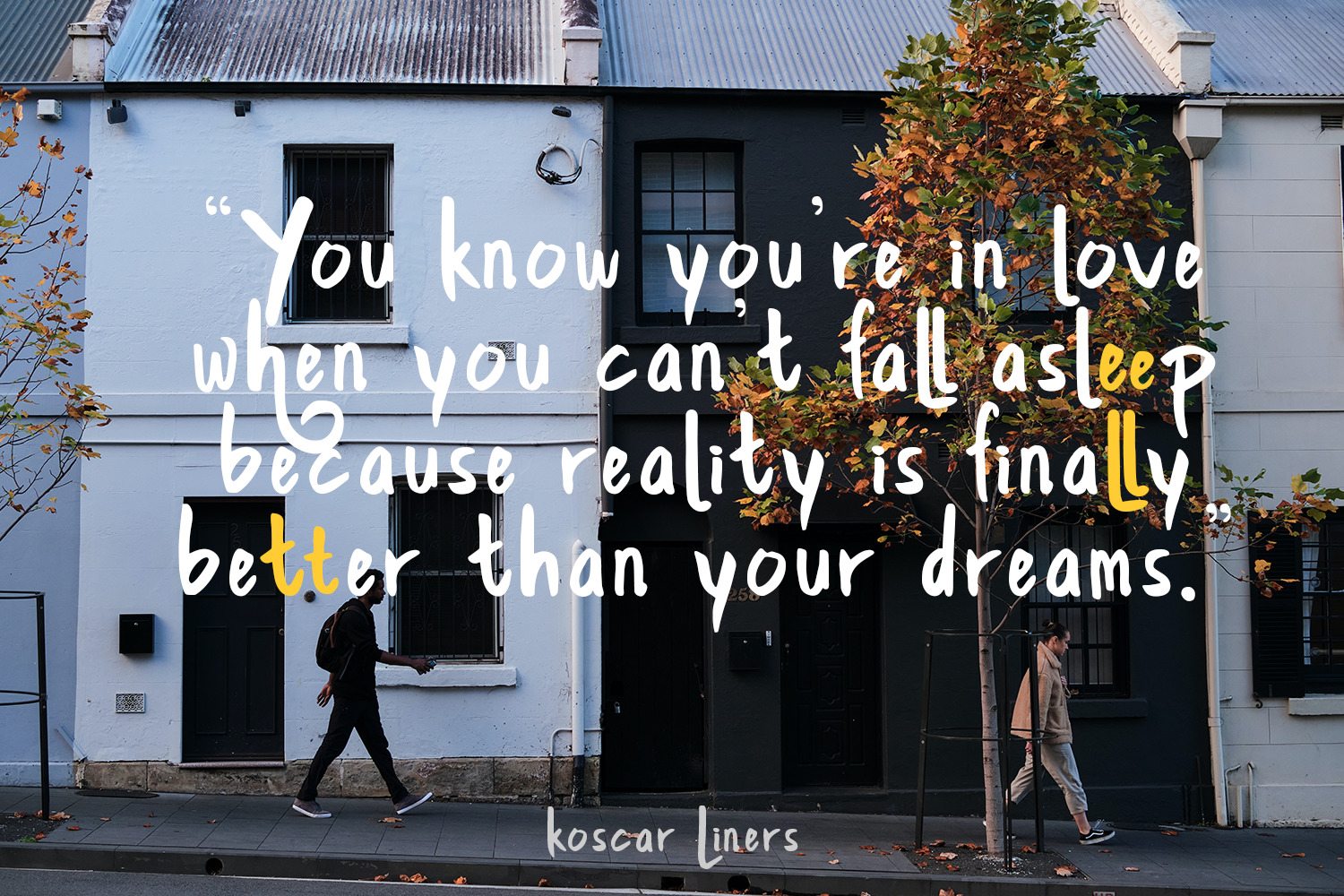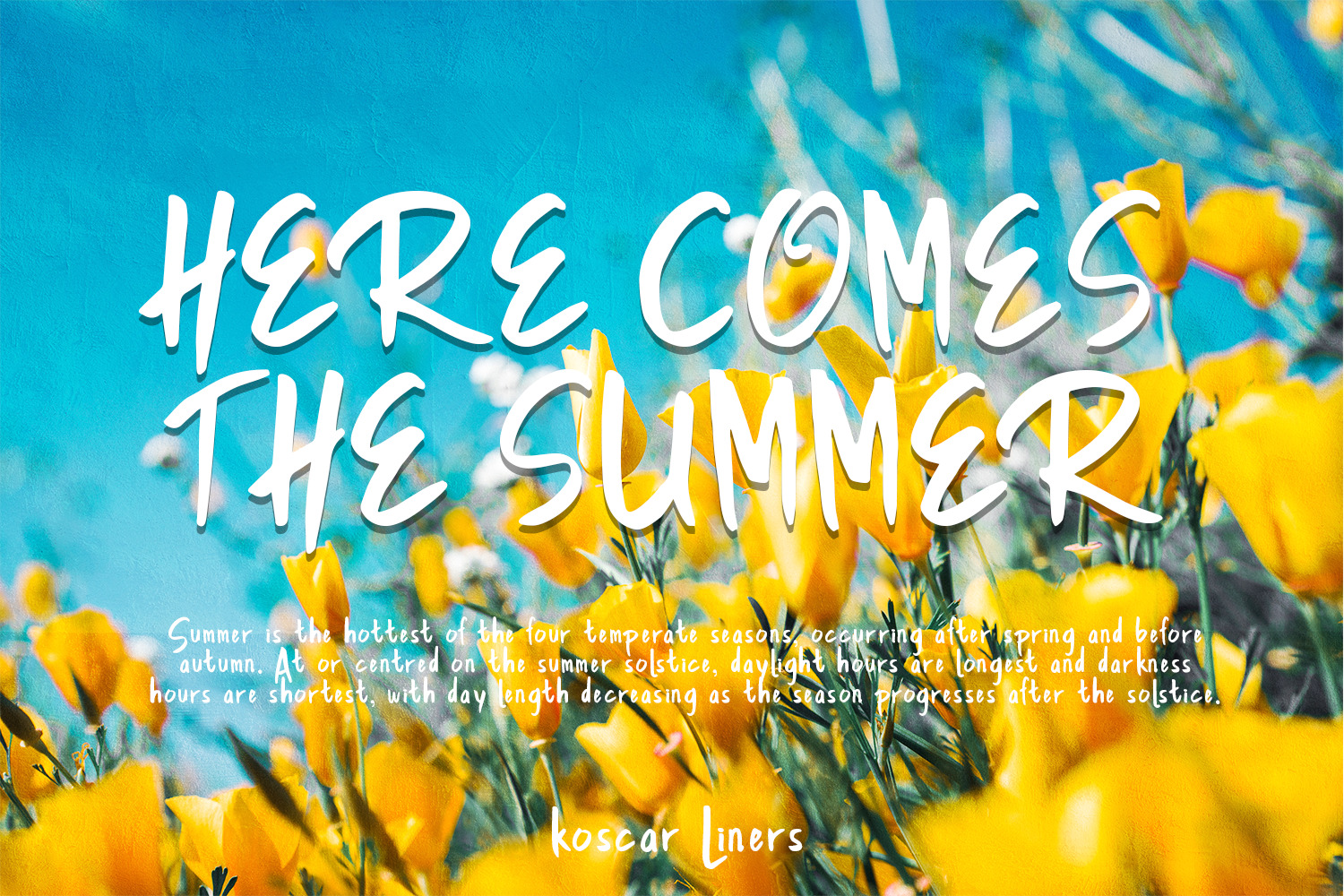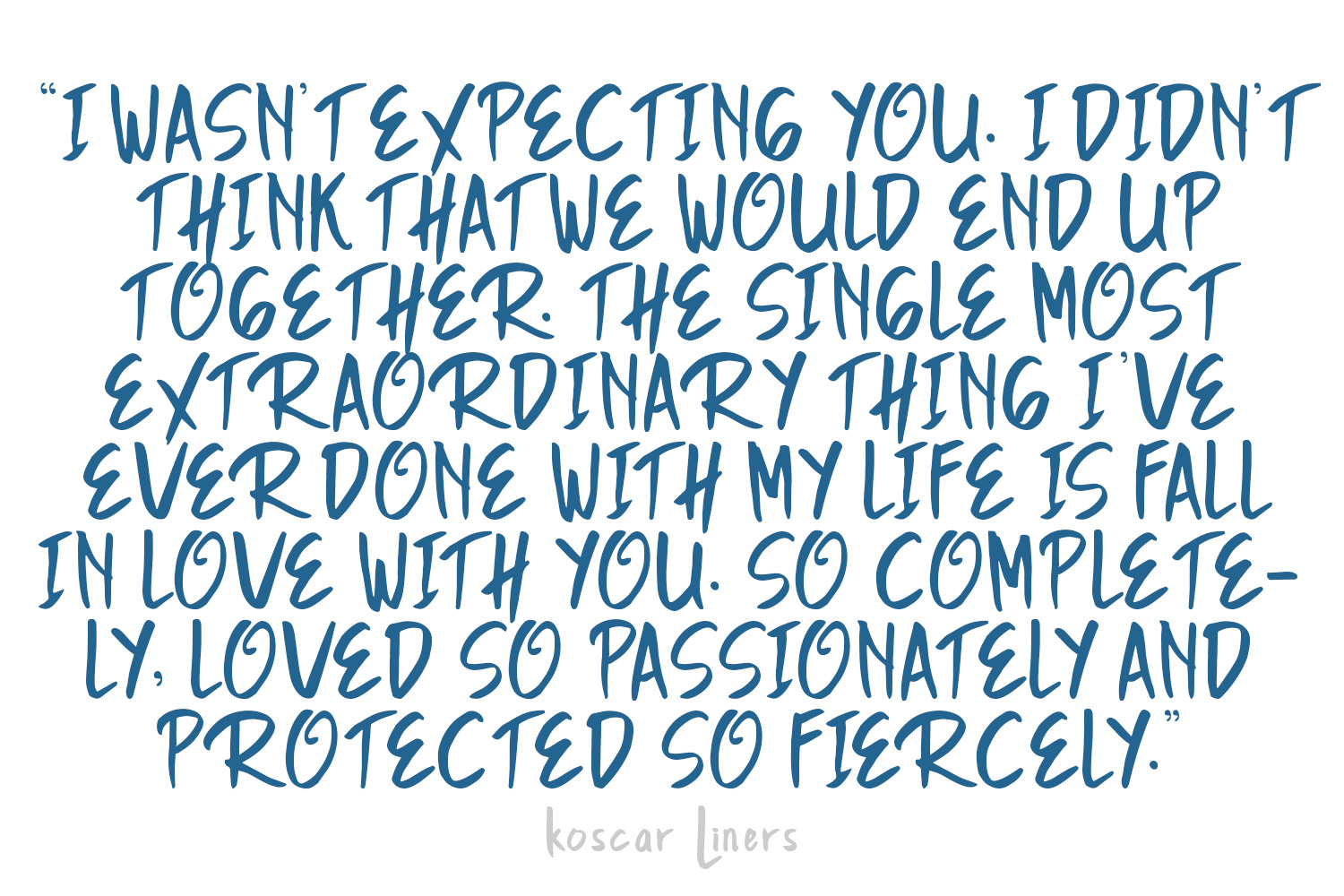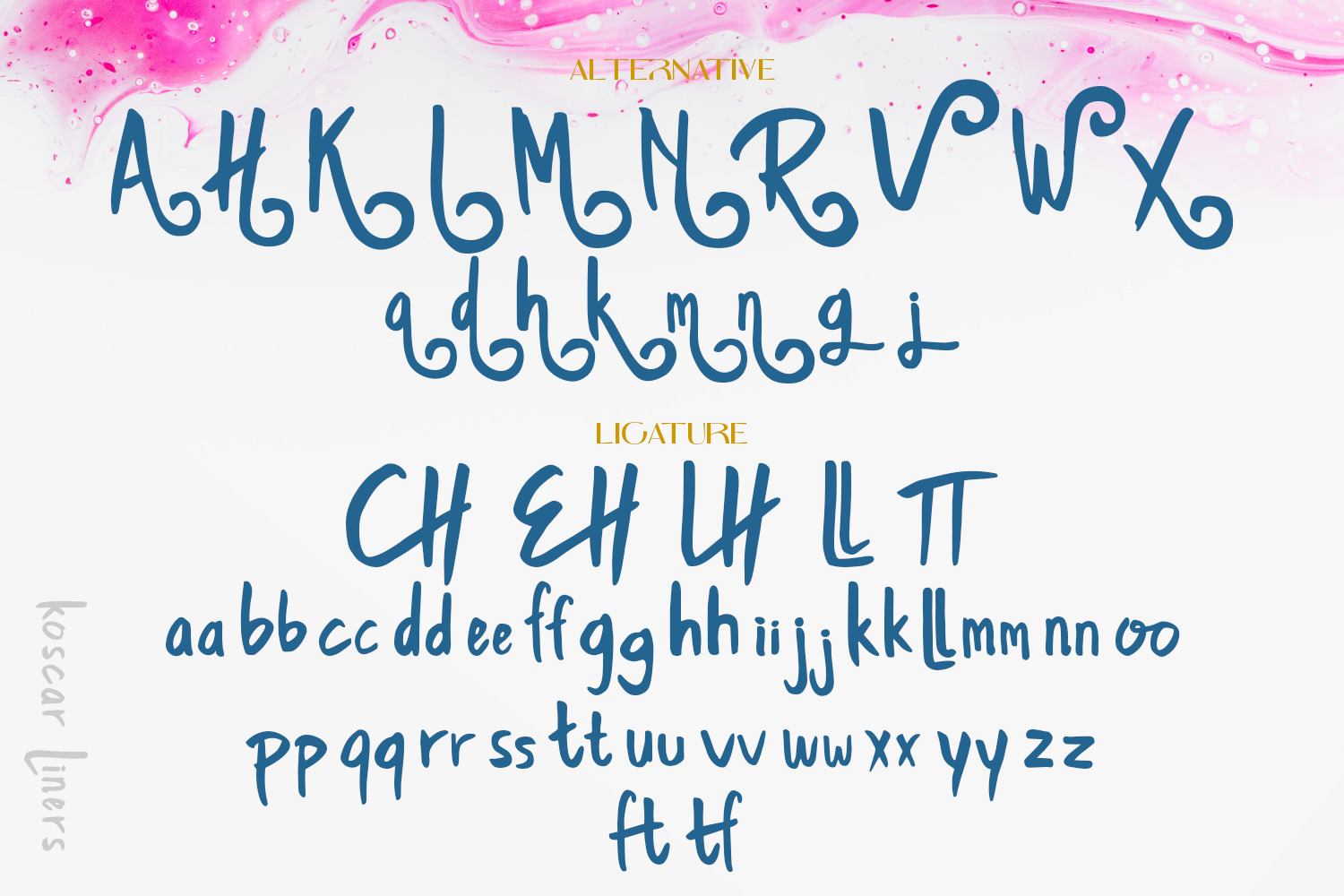
Koscar Liners - Handwritten Font
Introducing Koscar Liners is a realistic handwritten font and will be perfect for book, title branding, product packaging, invitation, quotes, label, poster, logo etc.
- Number & Symbol
- International Glyphs
- Alternative
- Ligature